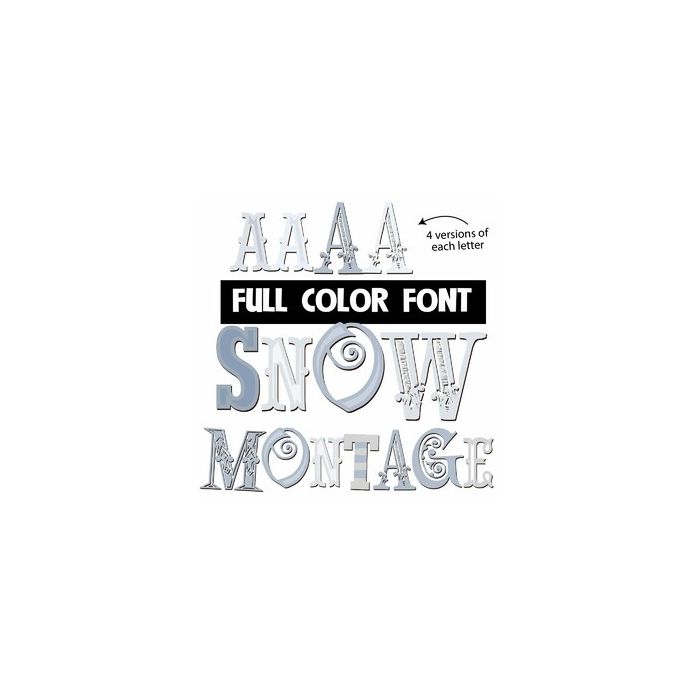
This full-color font features a montage of wintery colors. You can access another version of the letters by using the alt characters in Silhouette's glyph map.